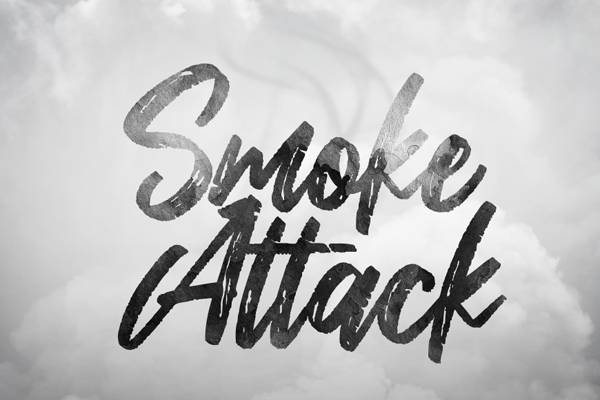
Known for having a unique brush stroke effect, smoke fonts are incredibly popular thanks to their iconic style. These fonts have been used in music videos, on posters, and in a variety of other places too. And now, thanks to our smoke font generator tool you can create your very own smoke-based designs to use however you see fit. The cursive letter style and the awesome shadowing effect are just two reasons why these fonts are so popular. With your own smoke font design, you can make your work really pop and stand out. This is great for those who are looking to get a message across with maximum impact.